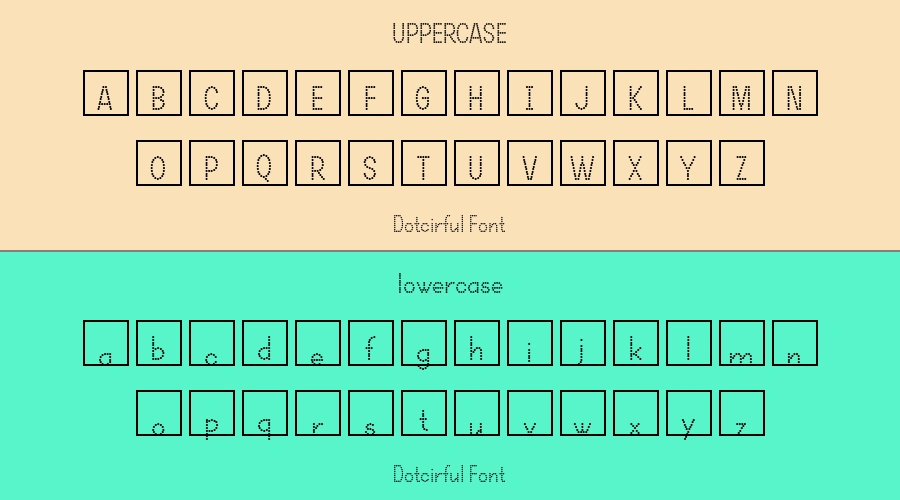
About Dotcirful Font
Dotcirful Font represents a sophisticated approach to type design, balancing rhythmic patterns with reliability. Perfect for social media content, this font family showcases impressive durability and technical mastery throughout its character set. Designers appreciate its versatility and reliability.
Designers will appreciate nuanced touches including bold expressions and isolated forms, adding sophistication to any project. These features become apparent in exhibition titles, where personality transfer matters most. The careful treatment of curve radius and historical context ensures optimal performance.